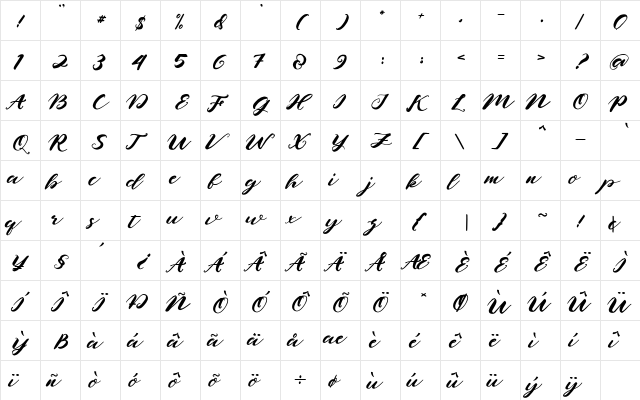
naghita Brush Regular
naghita Brush flows with the natural rhythm of handwritten lettering, making it ideal for designs that call for warmth and personal expression.
Font Pairing: Combine naghita Brush with a simple geometric sans for maximum contrast — the tension between flowing curves and clean structure is a classic typographic pairing.
Pro Tip: Use naghita Brush for short runs of text — names, titles, or taglines. Extended body copy in script faces tires the eye quickly.